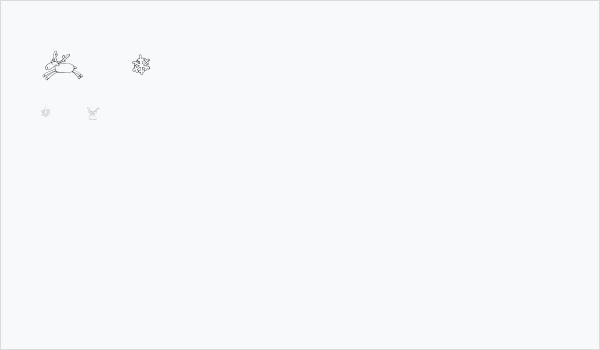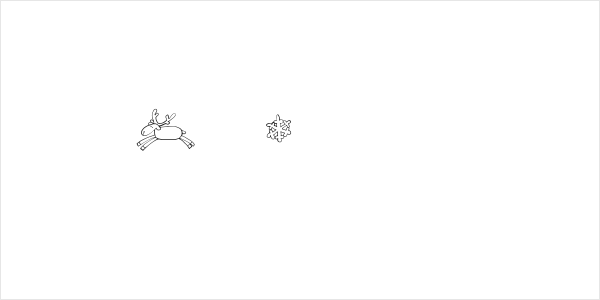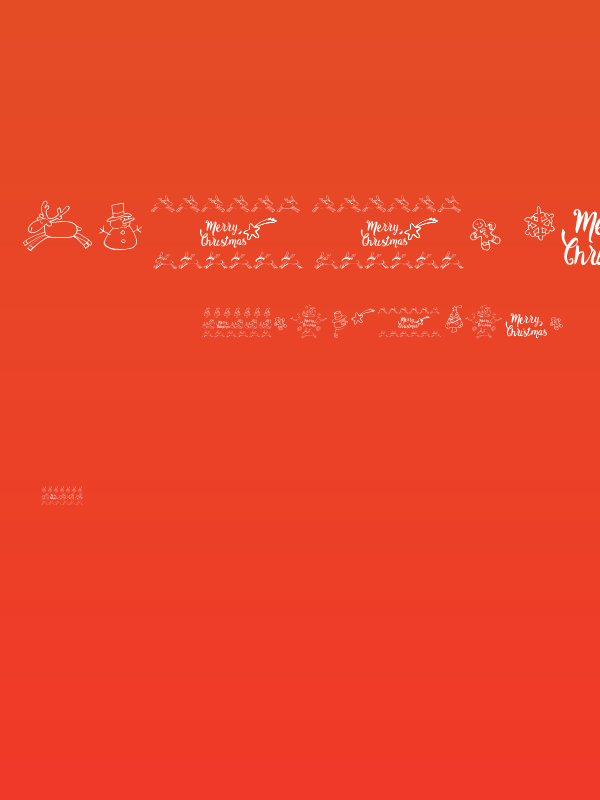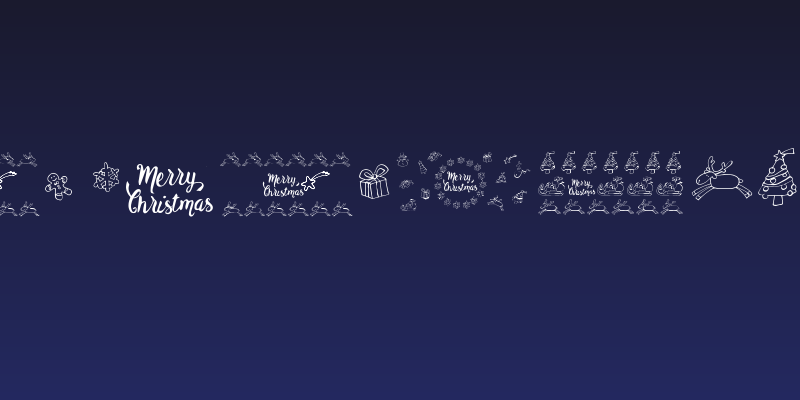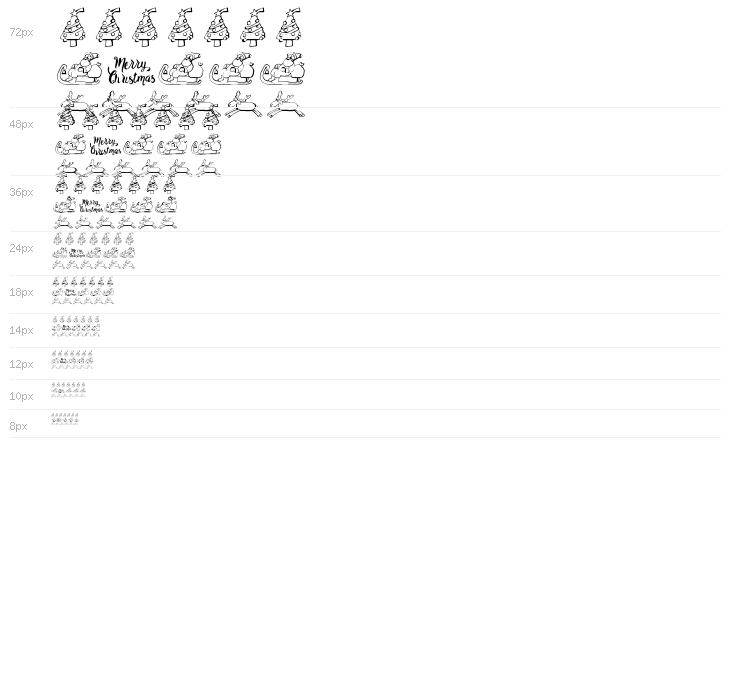
Merry Christmas_demo Font
Merry Christmas_demo Description
This is a decorative and playful font that embodies the festive spirit of the holiday season. It features whimsical illustrations of Christmas-themed elements such as trees, snowflakes, reindeer, and gifts, integrated into the design. The lettering is bold and dynamic, with a hand-drawn, script-like quality that adds a personal touch. The overall style is cheerful and lively, making it perfect for capturing the joy and warmth of Christmas. The font is not designed for traditional text use but rather for decorative purposes, enhancing holiday-themed projects with its unique and artistic flair.
| Use Case | Logos, Headlines, Decorative elements |
| Proposed Projects | Ideal for holiday cards, festive banners, Christmas party invitations, seasonal decorations, and gift tags. |